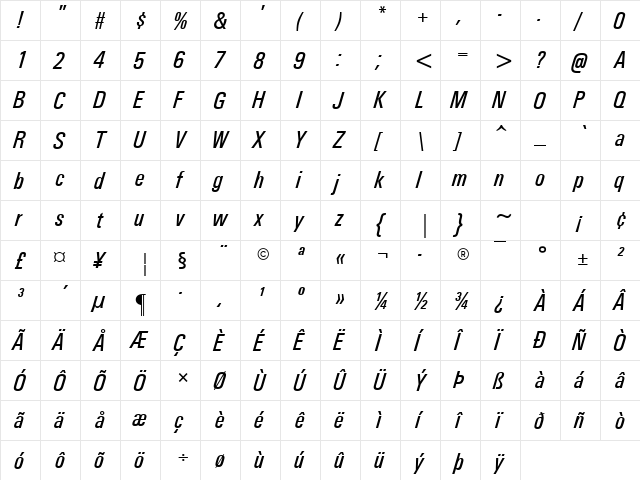
MilkyWay Cond Italic Regular
Design Context for MilkyWay Cond Italic Typeface
MilkyWay Cond Italic is a composed and adaptable typeface that performs quietly and consistently across a wide range of design contexts. Its italic angle brings a sense of urgency and motion to the letterforms. The condensed width makes it efficient for tight spaces without sacrificing legibility.
Pro Tip: Try MilkyWay Cond Italic for annotation and caption copy alongside an upright companion — the contrast in angle creates a dynamic but ordered typographic system.